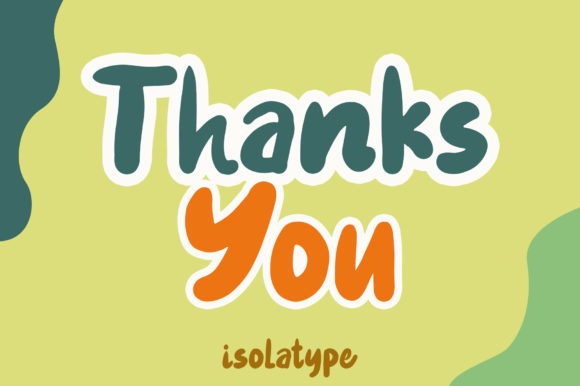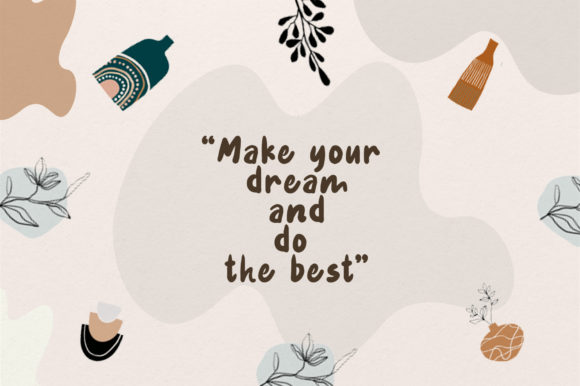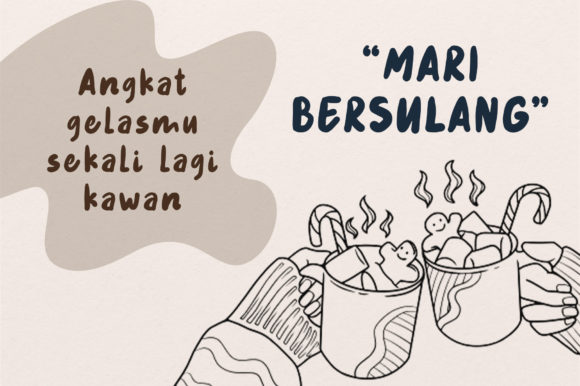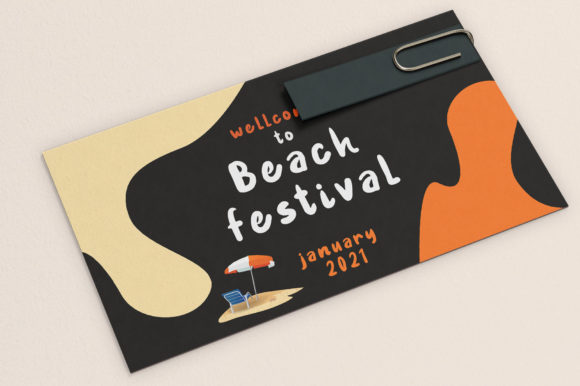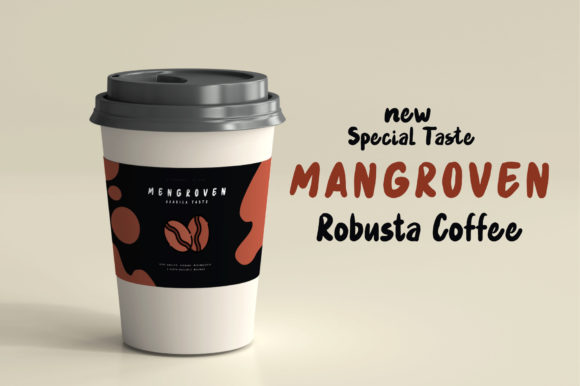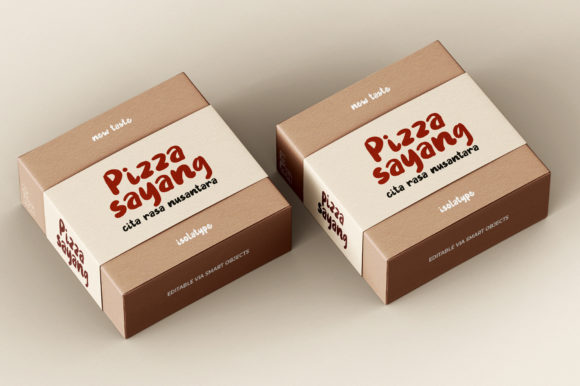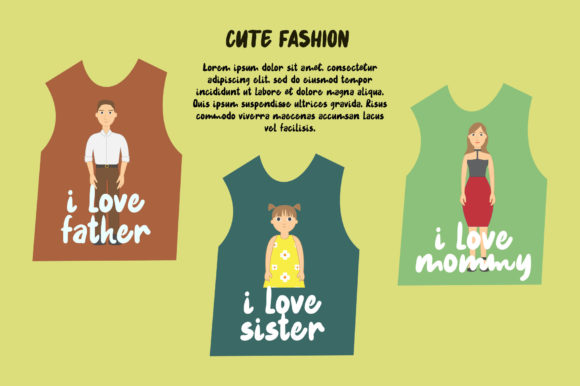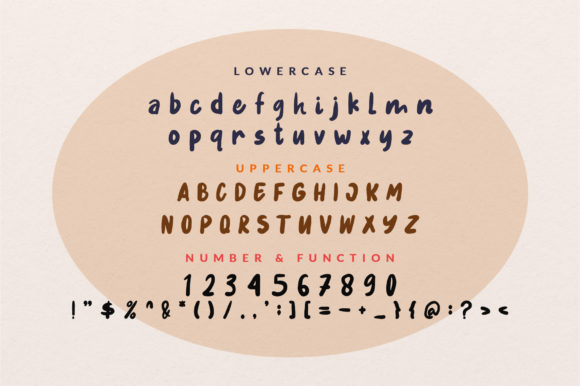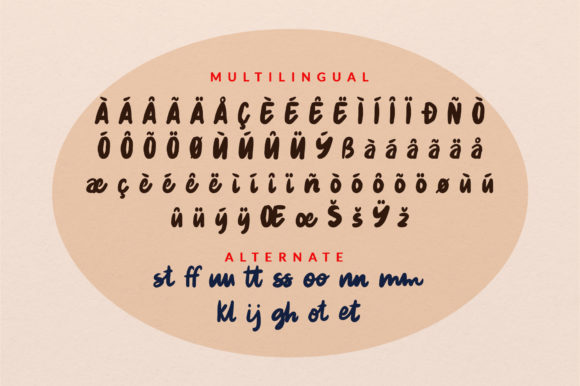
Script Fonts Rampung Font 0 153 FacebookTwitterPinterestWhatsApp 1 of 10 Rampung Font Poster 2... Rampung Font Poster 3... Rampung Font Poster 4... Rampung Font Poster 5... Rampung Font Poster 6... Rampung Font Poster 7... Rampung Font Poster 8... Rampung Font Poster 9... Rampung Font Poster 10... About Rampung Font RampungĀ is a cute and simple lettered handwritten font that can be used for all chalkboard quotes or teaching material! Its authentic look will add a personal and realistic feel to your designs. DOWNLOAD NOW